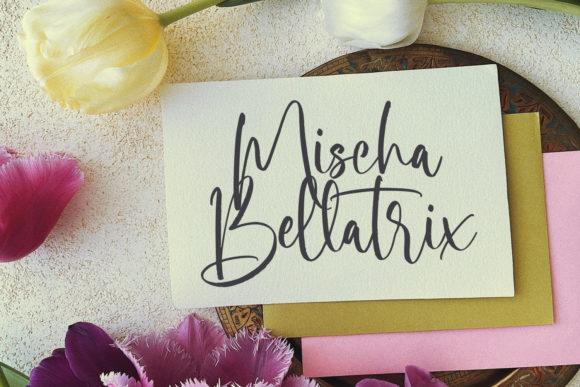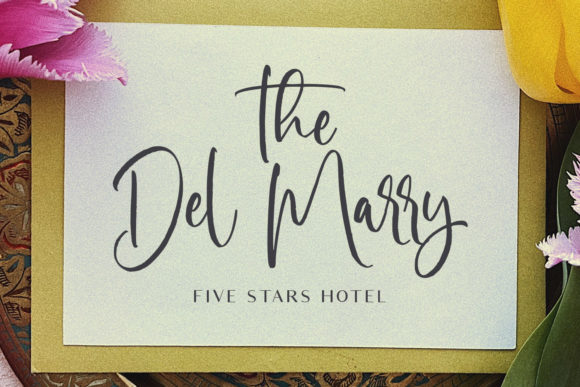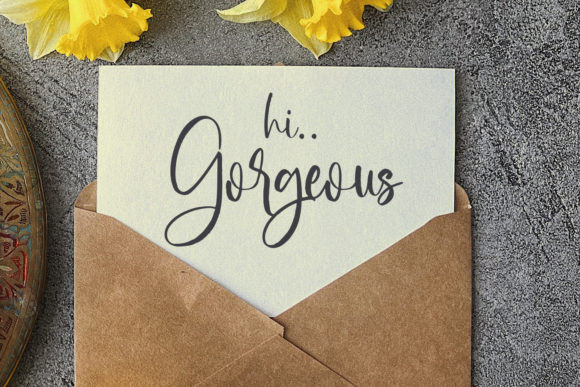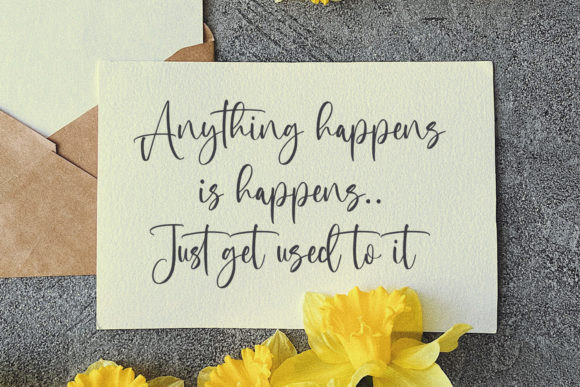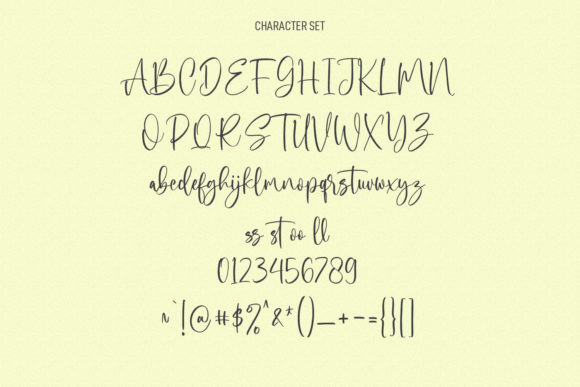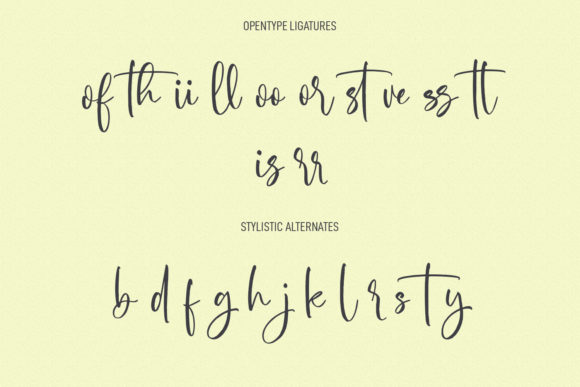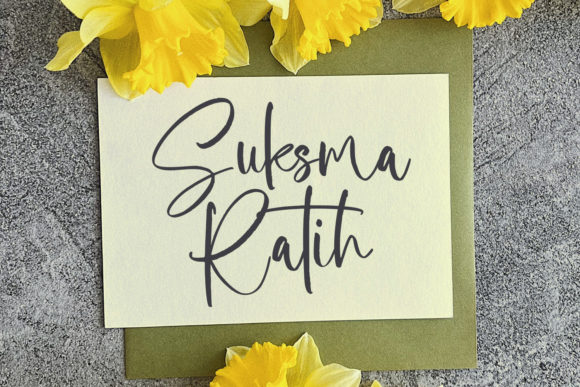
Miguel Sparks Font
About Miguel Sparks Font
Miguel Sparks is a stylish and dainty script font that adds a touch of elegance to a variety of projects. This versatile typeface is well-suited for a range of applications, including logos, branding projects, labels, photography, watermarks, special events, and any other creative endeavors that demand a beautiful script style.
The stylish and dainty qualities of Miguel Sparks make it a perfect choice for projects that require a refined and sophisticated aesthetic. Whether used in branding to create a memorable logo, adding a touch of class to labels, or enhancing the visual appeal of photographs and watermarks, this font brings a beautiful script taste to the forefront.
Its versatility allows Miguel Sparks to adapt seamlessly to different design contexts, ensuring that it complements various creative projects. The dainty strokes and stylish design make it a valuable asset for anyone looking to infuse a sense of beauty and sophistication into their visual creations.
In summary, Miguel Sparks is more than just a font; it’s a stylish and dainty script typeface that enhances the aesthetic appeal of your projects. Whether you’re working on logos, branding, labels, photography, or special events, this font provides a beautiful script taste that elevates your creative endeavors with elegance and style.